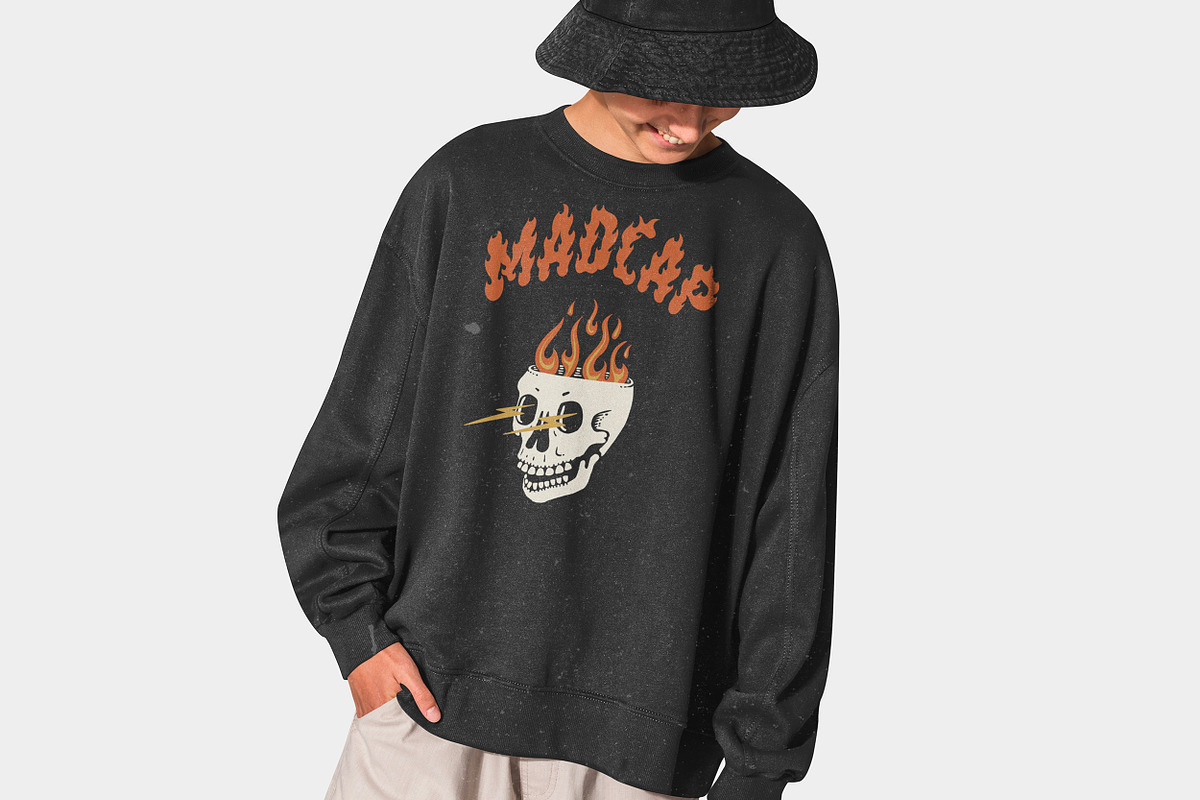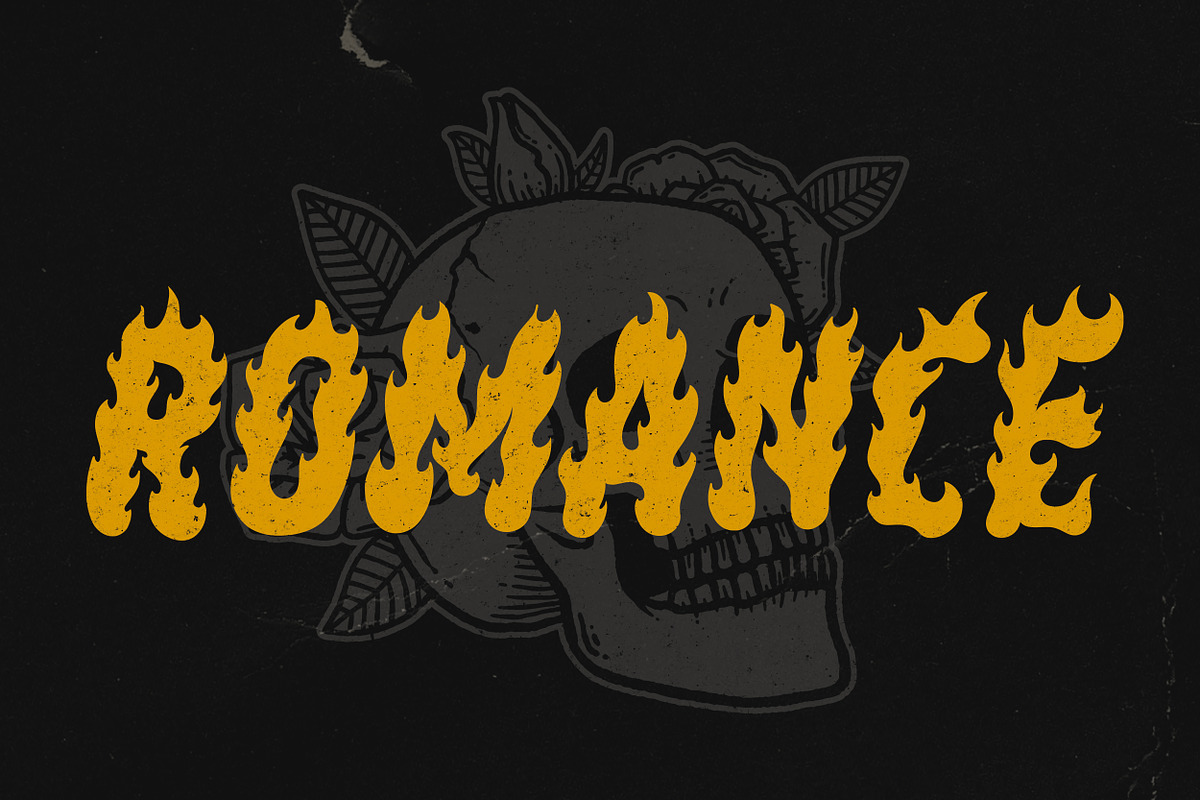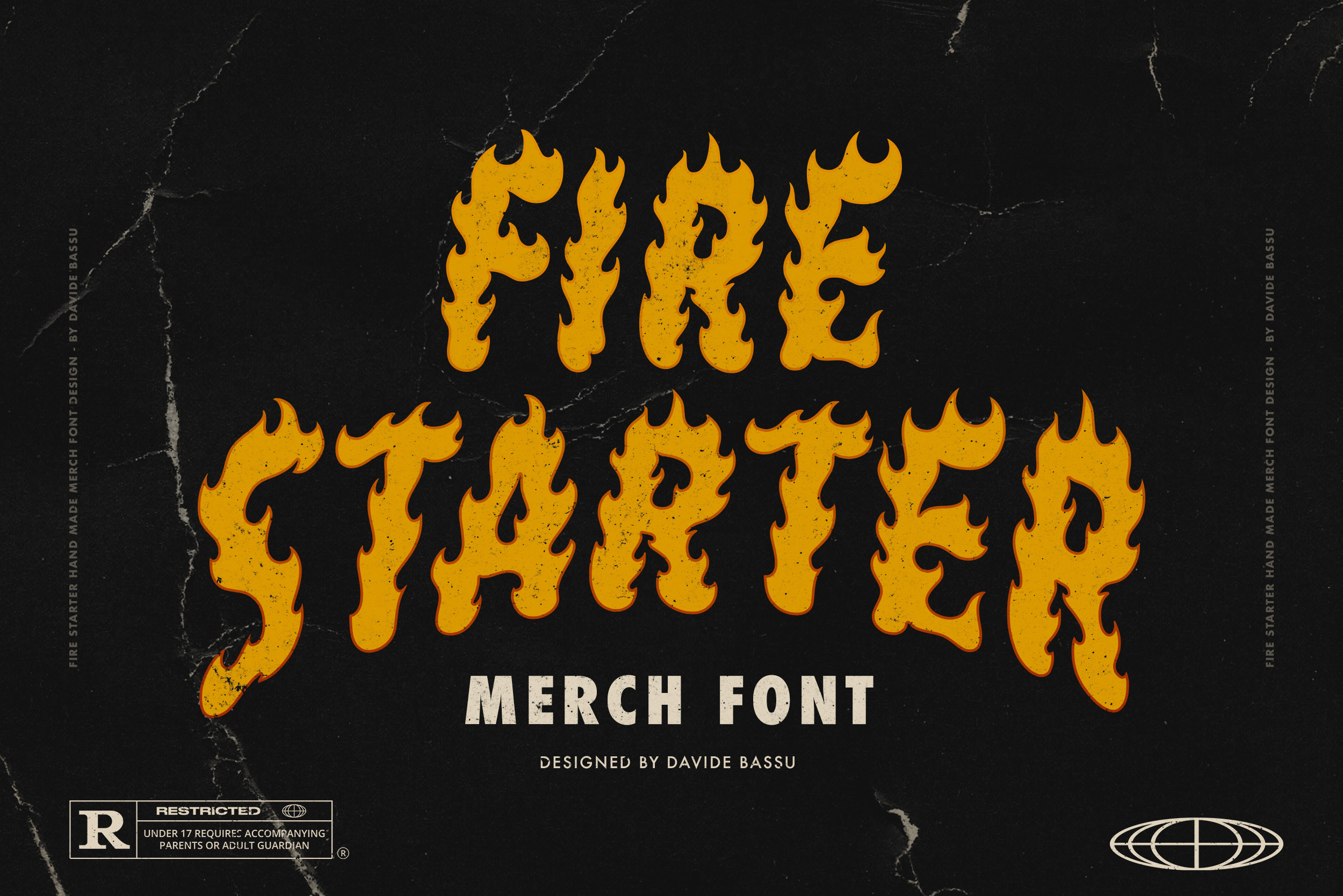
Fire Starter Merch Font
Introducing Fire Starter, a blazing new handcrafted flame font. This uniquely crafted font is designed for those seeking to make a bold statement in the world of merch designs and apparel branding.
Ideal for a wide range of applications, Fire Starter lends itself seamlessly to apparel, accessories, and promotional materials. It's a versatile choice for those who want their designs to radiate with intensity and captivate the attention of their audience.